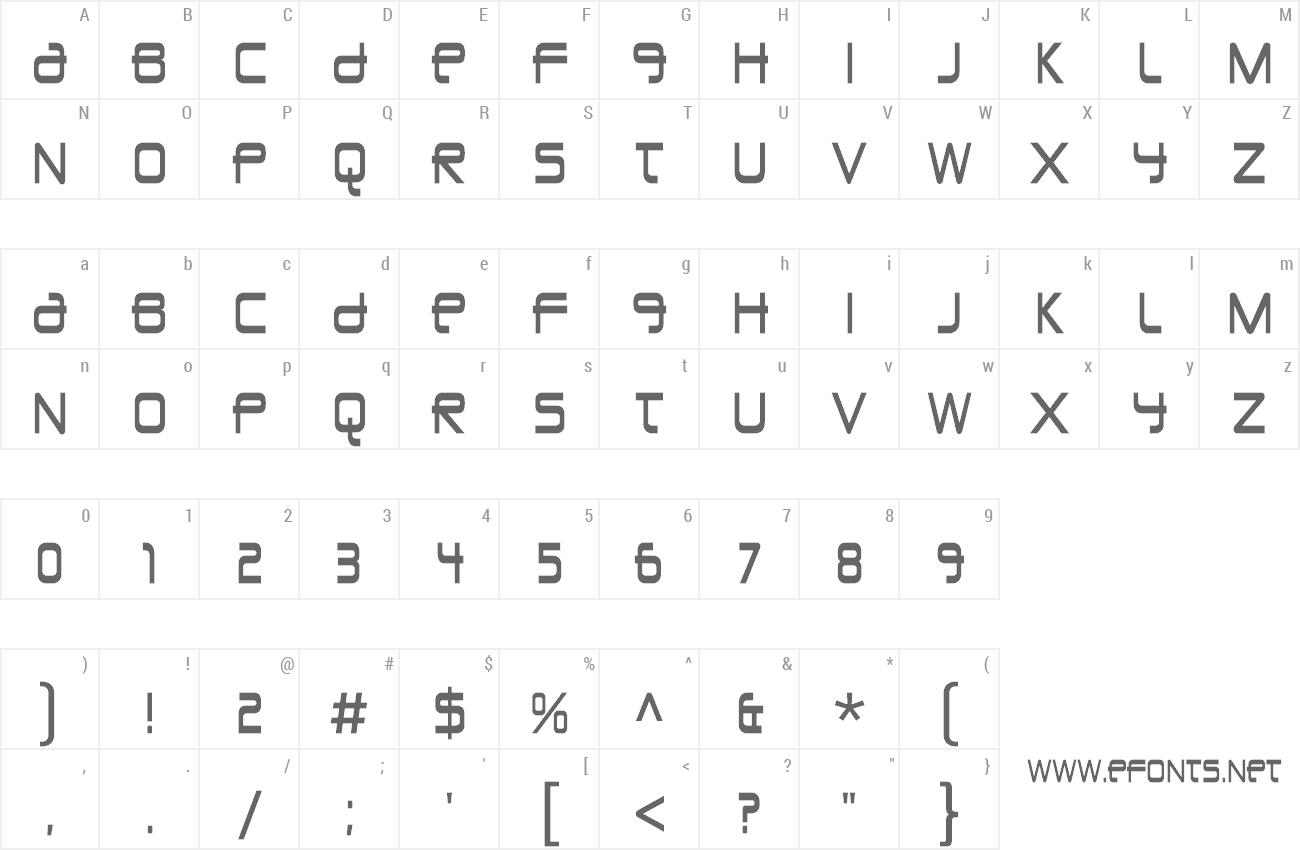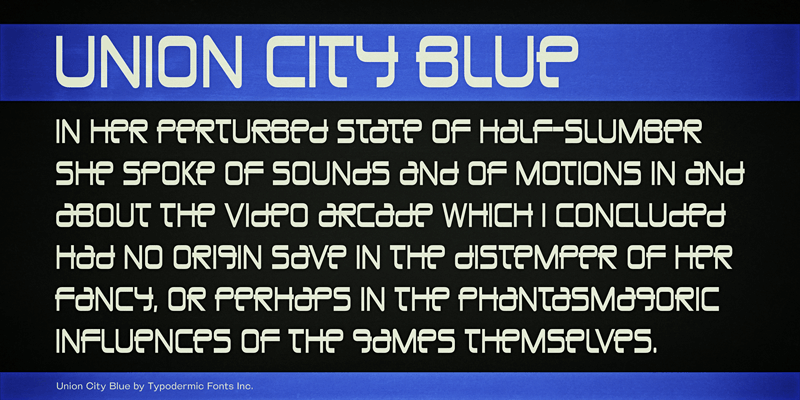
Union City Blue is surely what they’ll use for the numerals on spaceship speedometers in the year one zillion. This font includes a license that allows free commercial use: sometimes referred to as a desktop license. This allows you to install the font on a computer and use it to create posters, web graphics, game graphics, t-shirts, videos, signs, logos and more. Read the license agreement for details. If you'd like to embed this font in an app, ebook, on the web or anything that's not covered by the desktop license agreement, visit the link below. You'll find distributors who offer different types of licenses or you can contact me for help. http://typodermicfonts.com/union-city-blue/ |